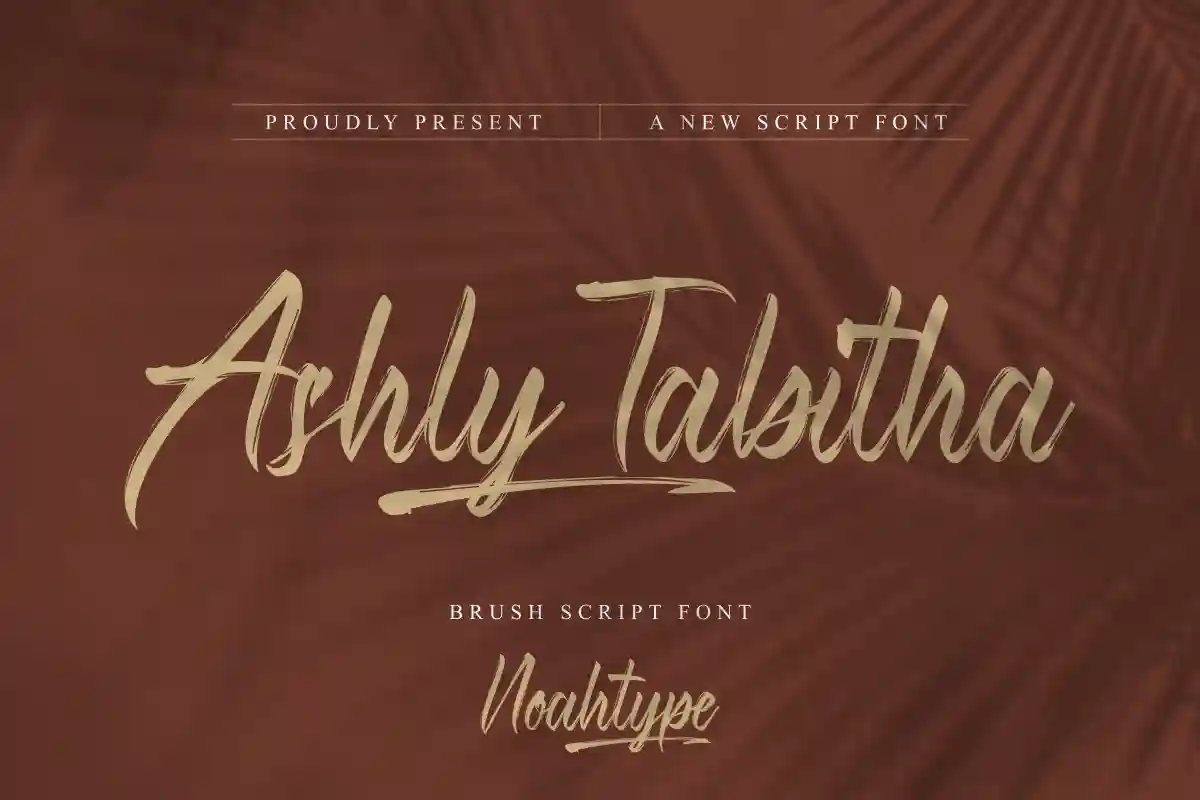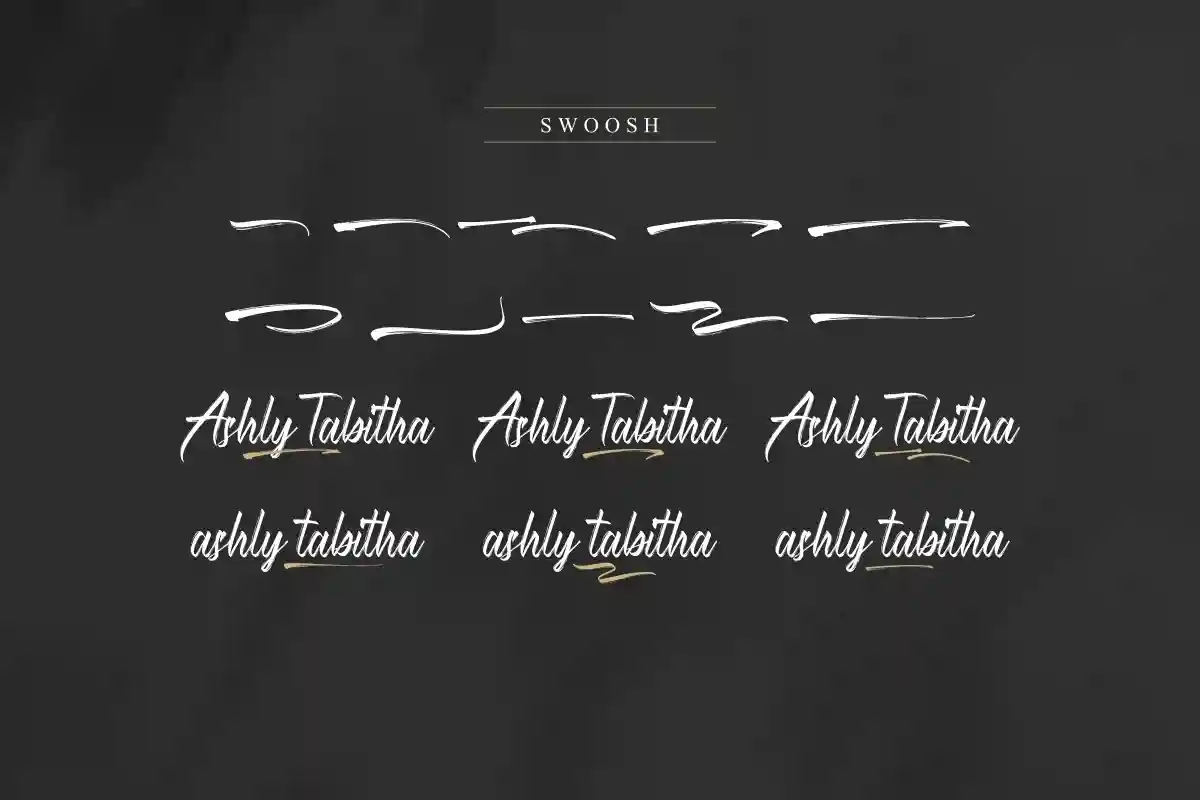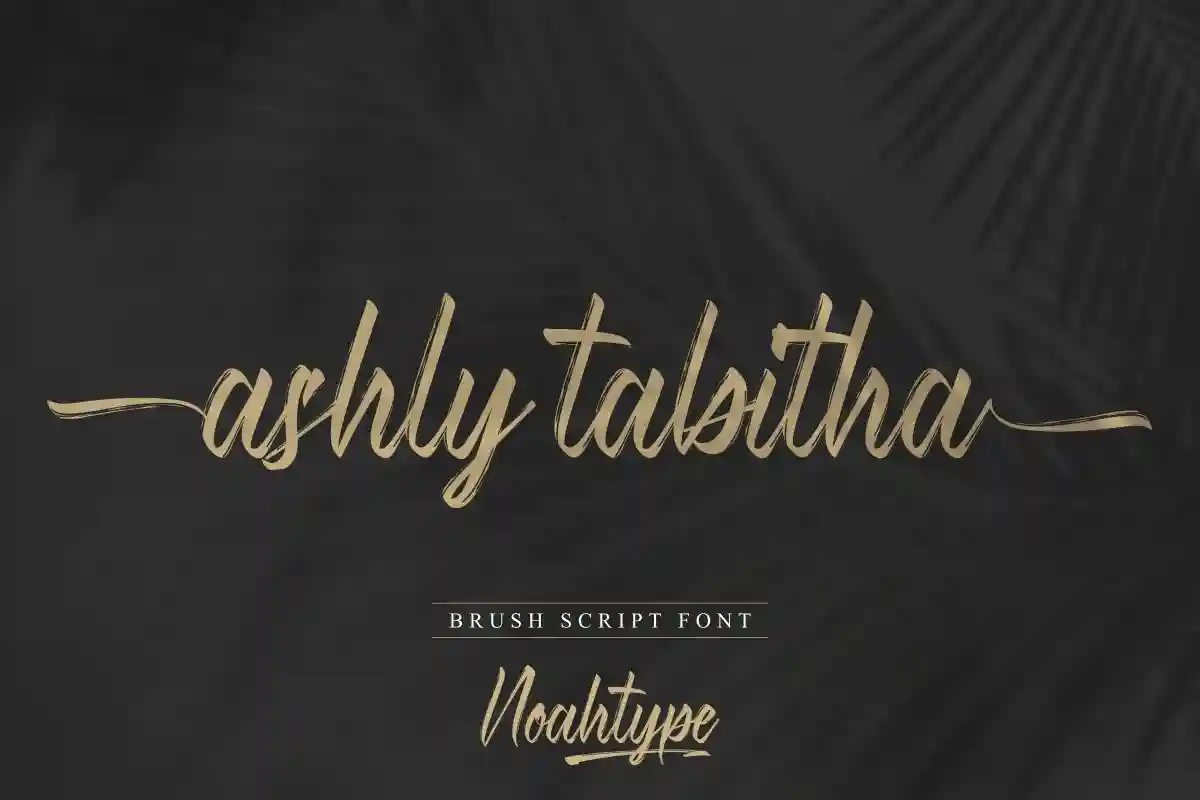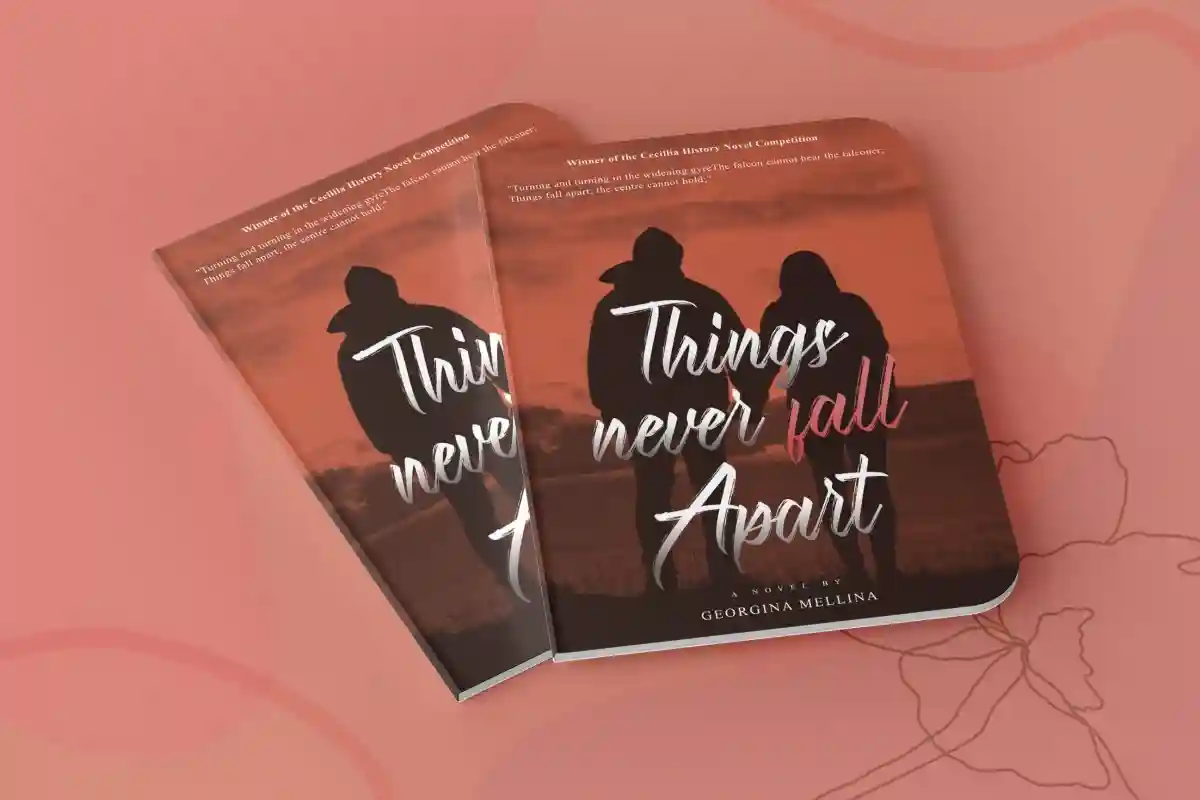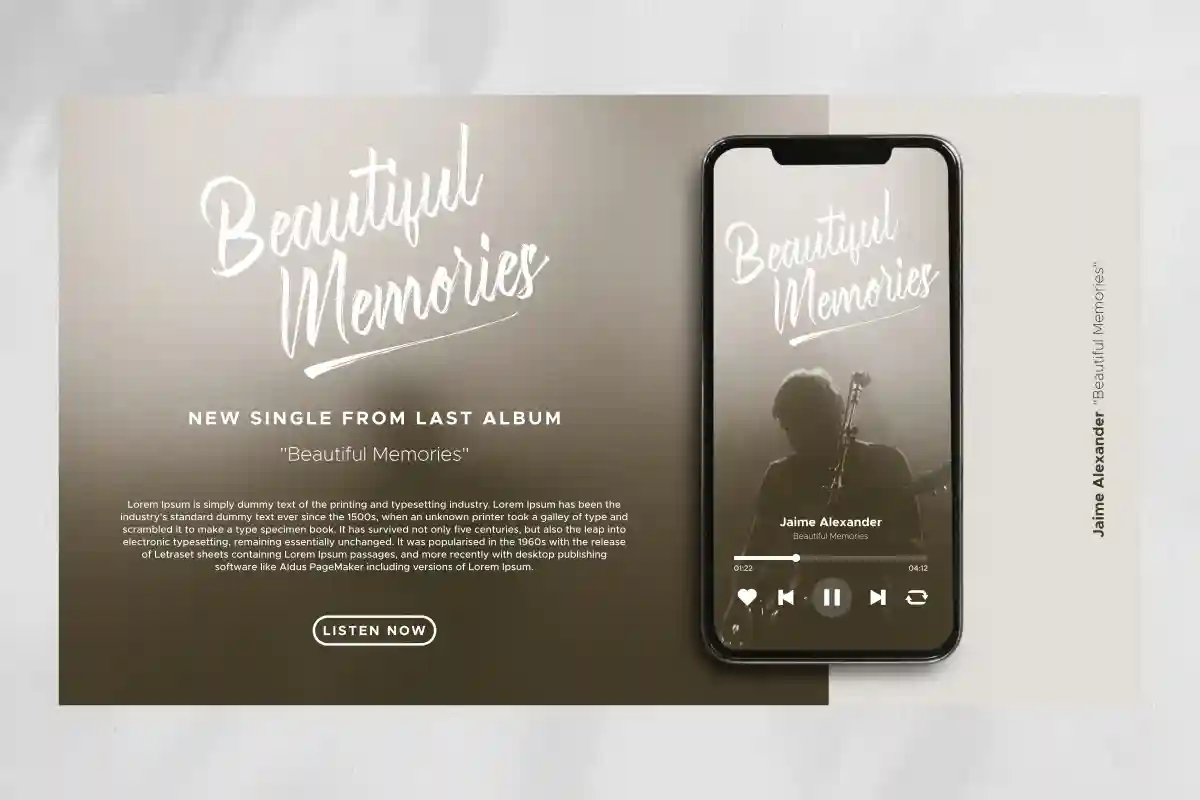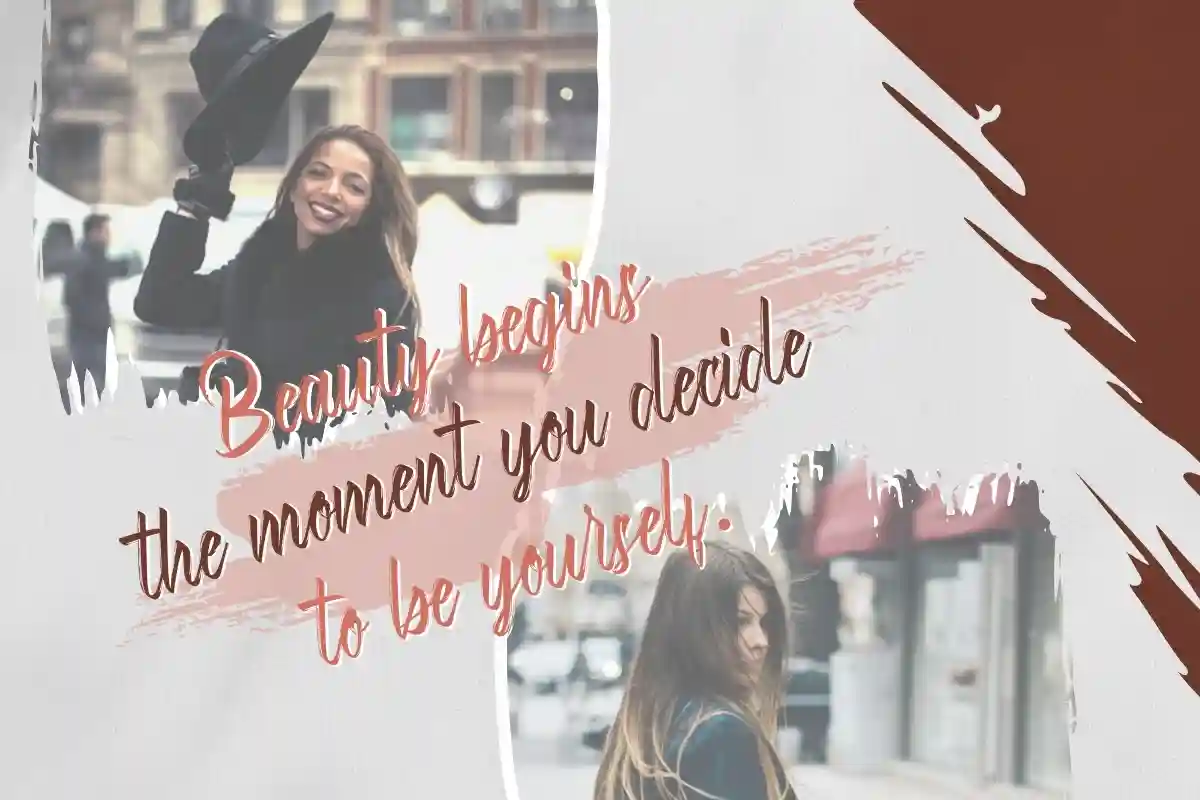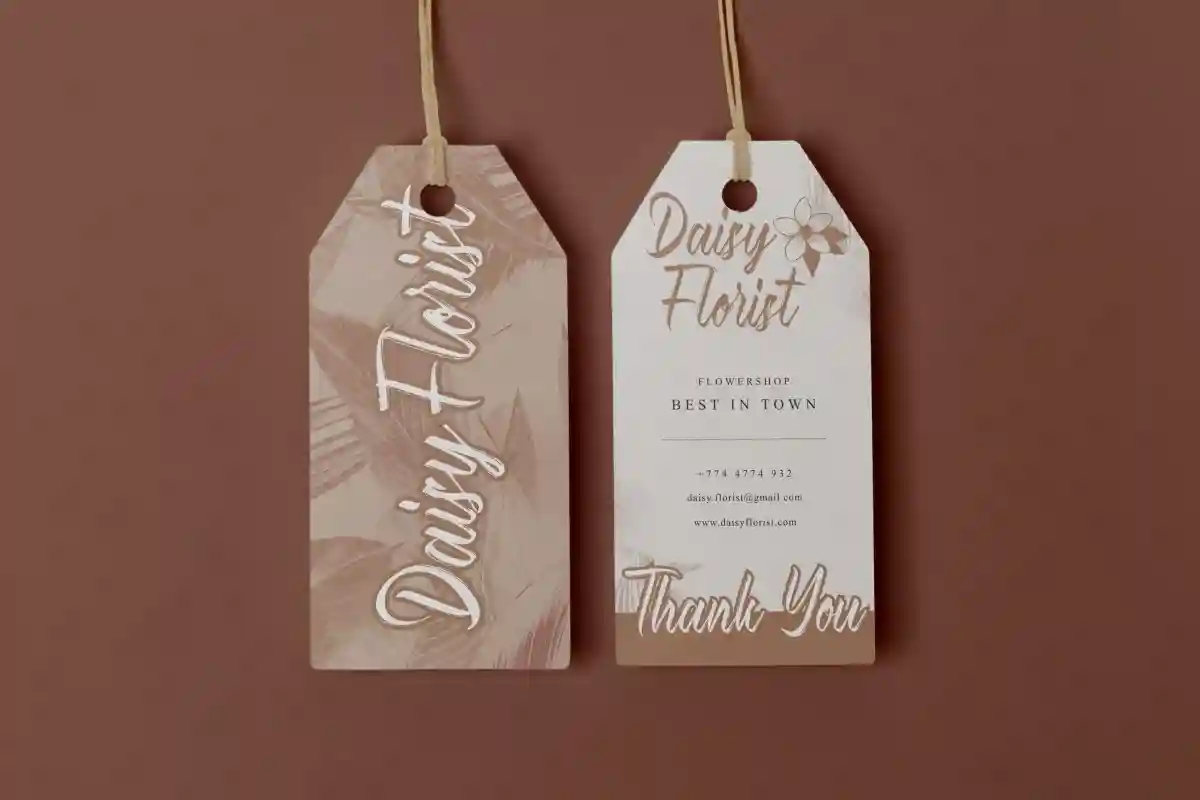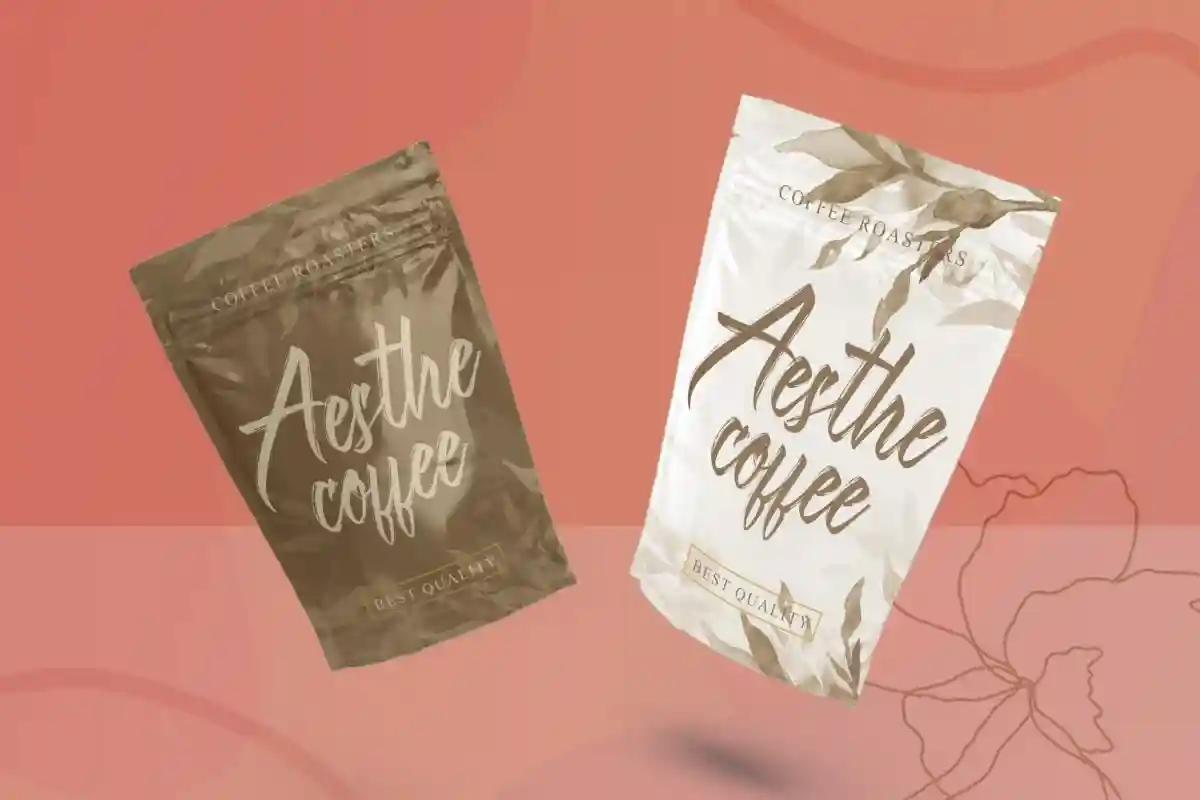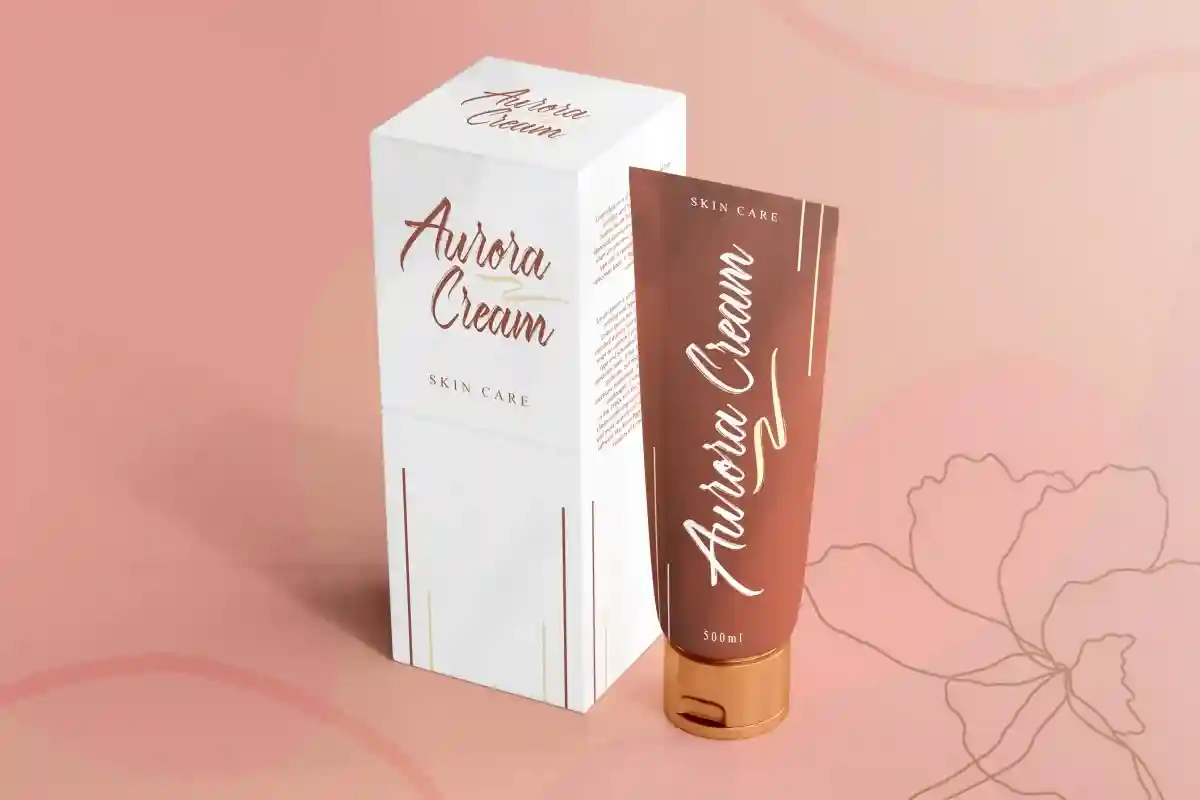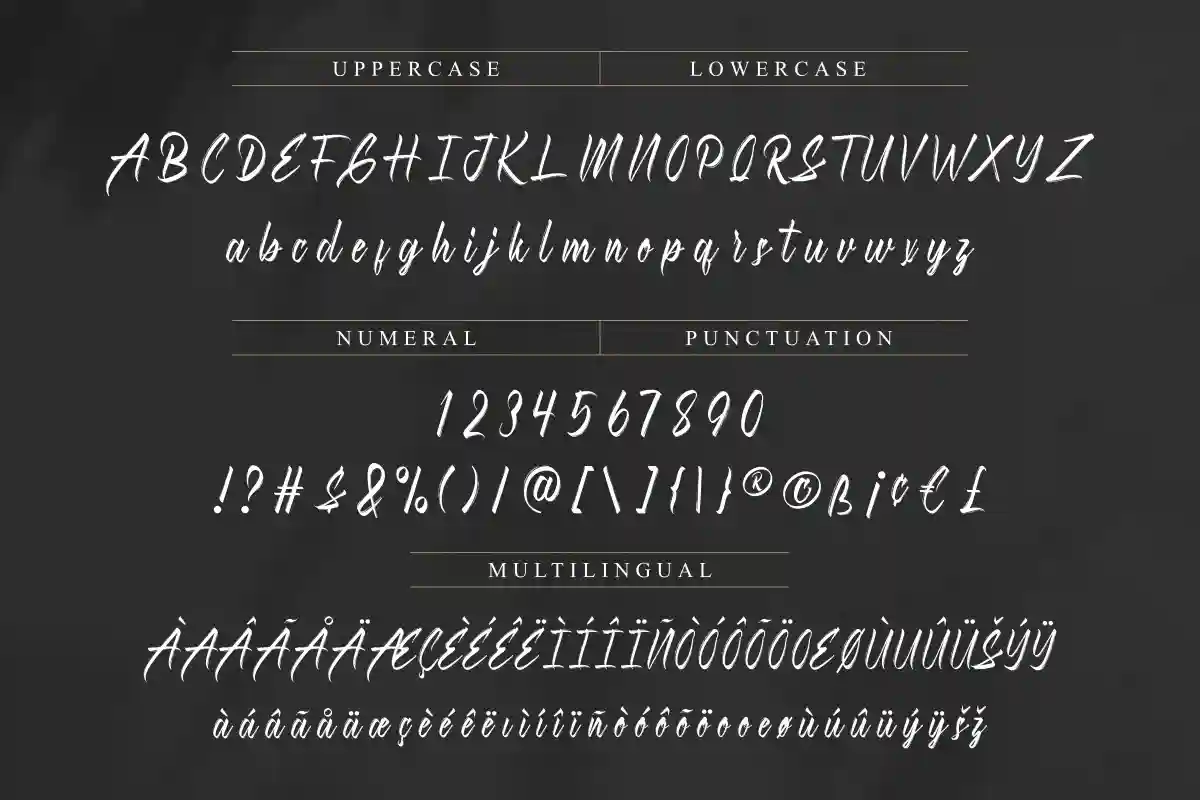
Ashly Tabitha Font is a textured brush calligraphic font with modern character style. This font is crafted carefully in every its single scratch, created to look as close to a natural sketched so that it can create the perfect combination on each glyph. When we make this font, we really want to create a touch that is so flawless that it gives a natural impression on its use later. For example, if you want letter ‘s’ that has a flow sketch with letter ‘t’, you can find it in ‘st’ ligature glyph (just type in the text form below for trying). This awesome script is for anyone who are needing of elegance and stylish for their designs.
Ashly Tabitha Font includes full set of Uppercase and Lowercase Basic Characters, Numerals and Punctuation. Also it contains ligatures and alternates characters to perfectly make natural calligraphy look that add more beautiful and aesthetic fonts to perfect your extraordinary project. Ashly Tabitha Font will be awesome for wedding, engagement, branding, invitations, florist, hair stylish, makeup artist, event organizer, movie, music, festival, promotions, social media etc
Ashly Tabitha Font supports multilingual languages (including multiple currency symbols). With a simple installation, Ashly Tabitha Font will be ready to use both on Windows machine or Mac. In order to use alternative characters, usually we just need to block the end letters and select alternative letters on glyphs option. It really common in almost any software (Character Map for Windows and Font Book for Mac.). It work well on Adobe software such as Illustrator, Photoshop and several other software.